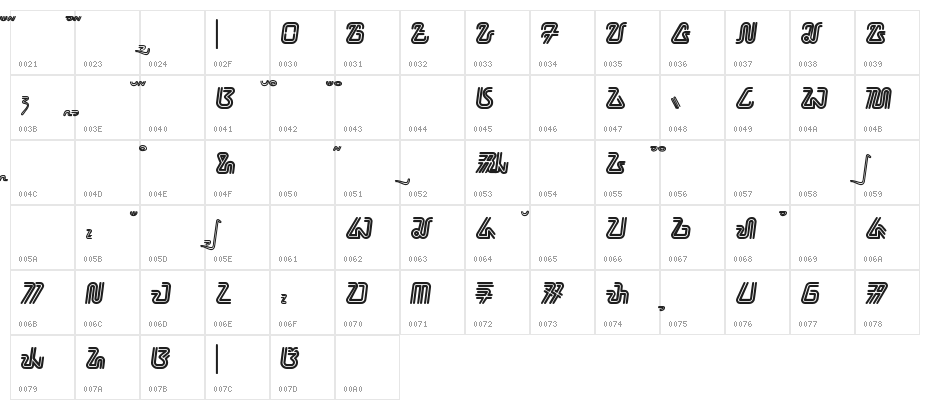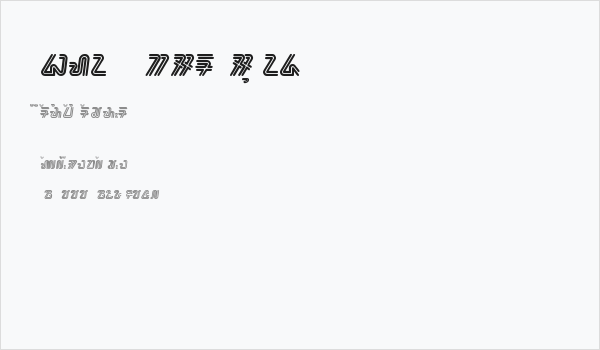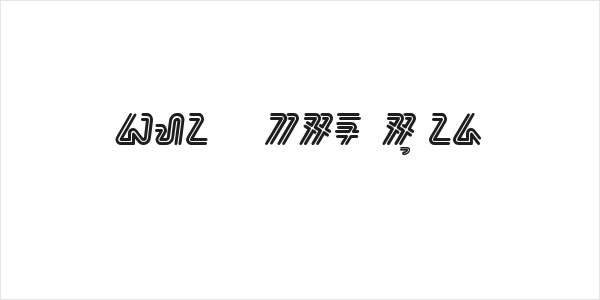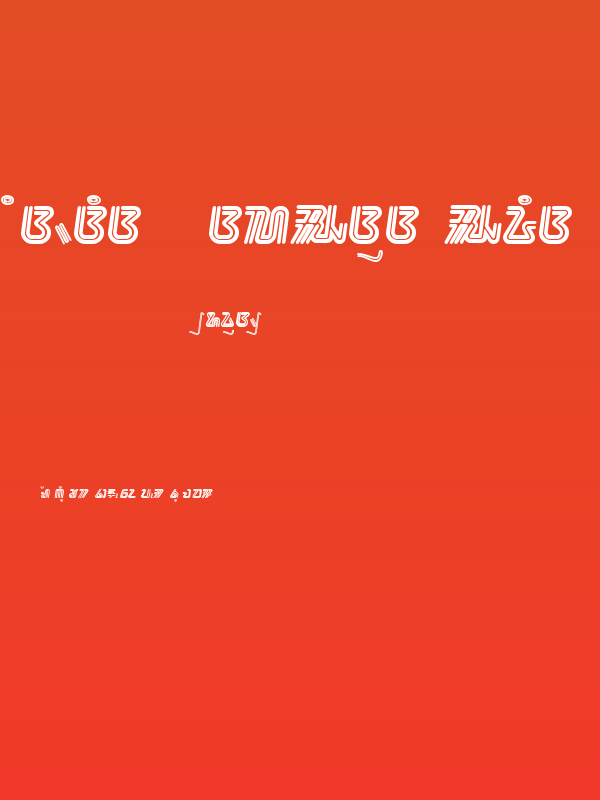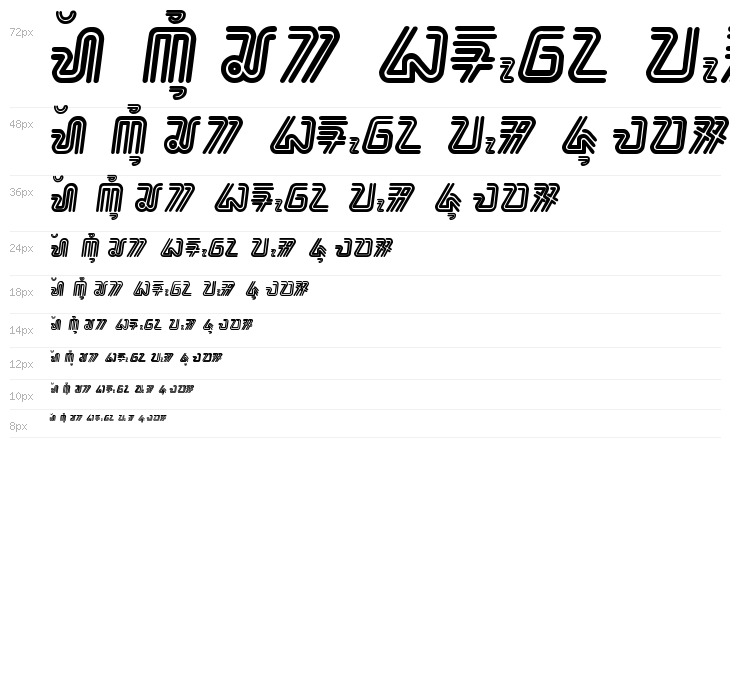
bahana - aksara sunda Font
bahana - aksara sunda Description
This font is a stylized representation of the Sundanese script, characterized by its bold, geometric lines and intricate curves. The characters are interconnected with a flowing design, creating a sense of movement and rhythm. The font maintains a consistent thickness throughout, giving it a uniform appearance. It is both decorative and functional, suitable for cultural or artistic projects that aim to incorporate traditional Sundanese elements. The design is modern yet pays homage to the historical roots of the script, making it versatile for various applications.
| Use Case | Logos, Cultural projects, Artistic designs |
| Proposed Projects | Ideal for cultural projects, artistic designs, educational materials, and branding that seeks to incorporate Sundanese heritage. |